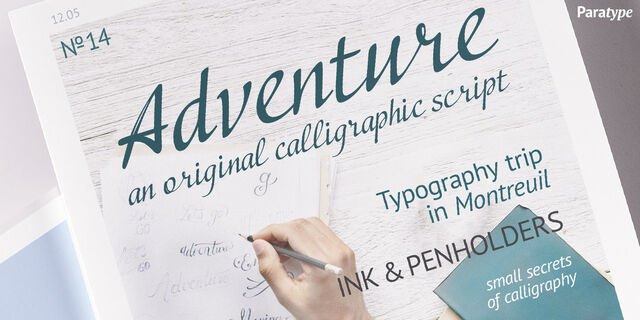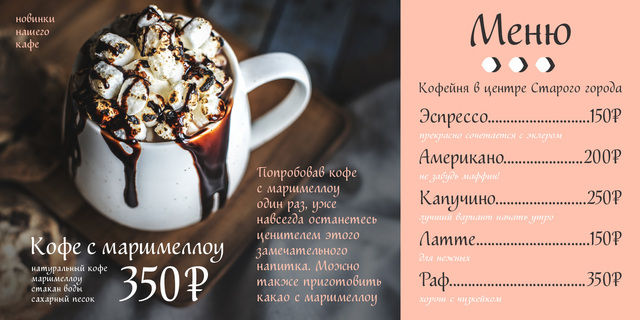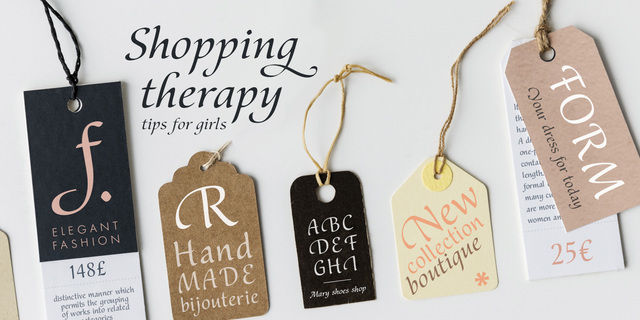
Illusion (2 fonts)
About Illusion™ is an original calligraphic script by Natalia Vasilyeva. The variety of alternates and ligatures makes Illusion especially suitable for use in advertising and display typography. Published by Paratype in 2019.